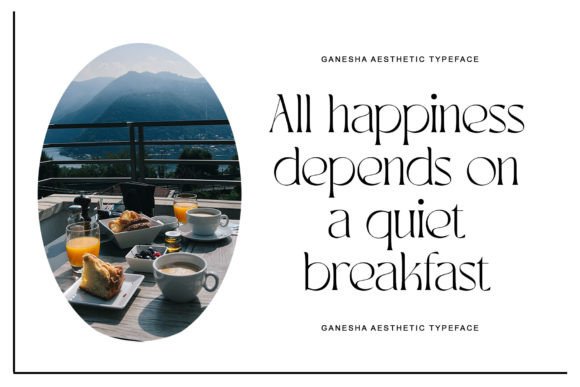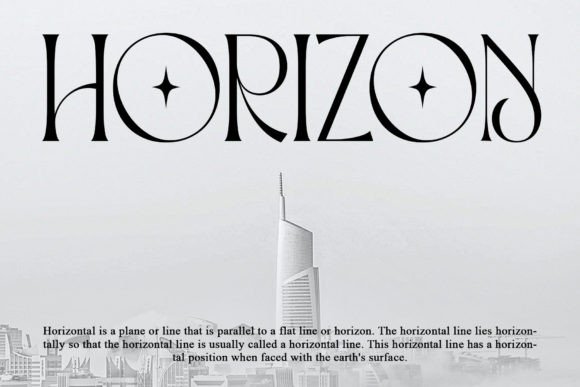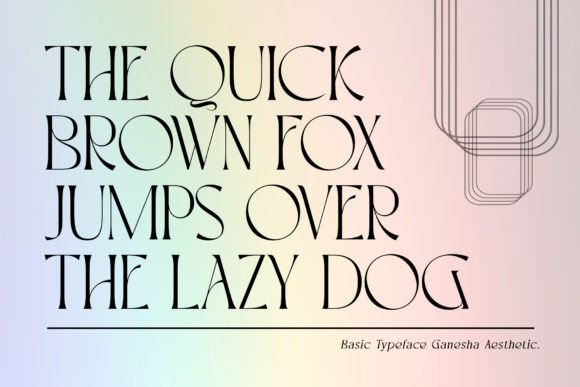
Ganesha Aesthetic Font
Ganesha Aesthetic is a special modern style serif font. A mix of regular and stylish letters in a beautiful elegant font. Made with pinpoint accuracy with beautiful curves, and will make your masterpiece very special. It is perfect for branding designs, logos, greeting cards, title packaging and other designs.